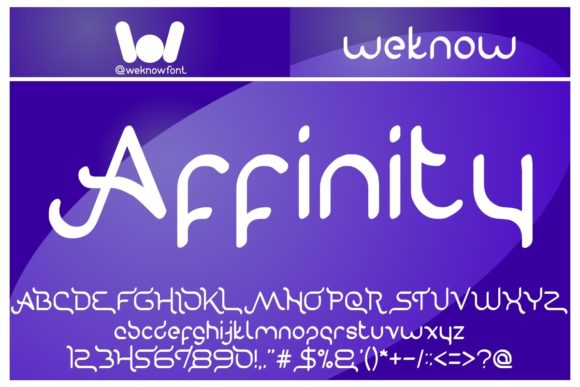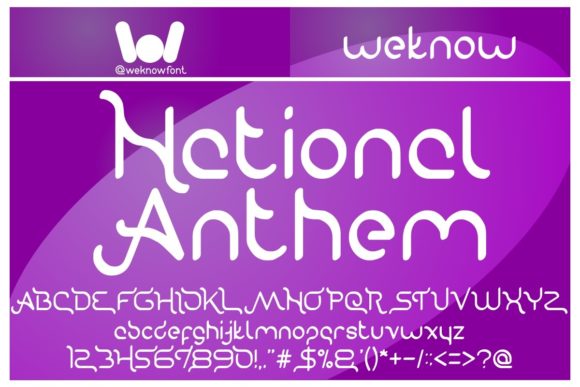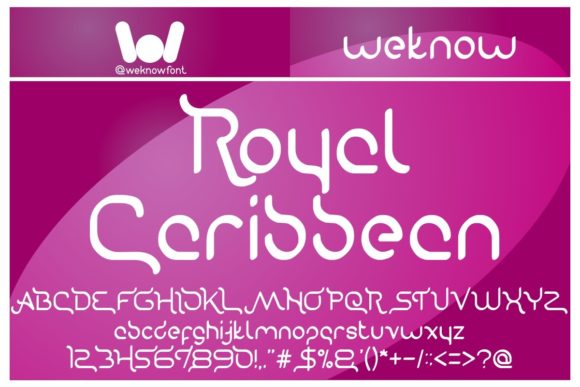
Introduction to Gravity Relationship Font
Gravity Relationship is a fancy display font suitable for various designs such as logos, logotypes, headlines, corporate identity, brand identity, apparel industry, posters, music, movies, games, magazines, books, comics, cartoons, YouTube, Instagram, websites, or any of your creative design projects.
Key Features of Gravity Relationship Font